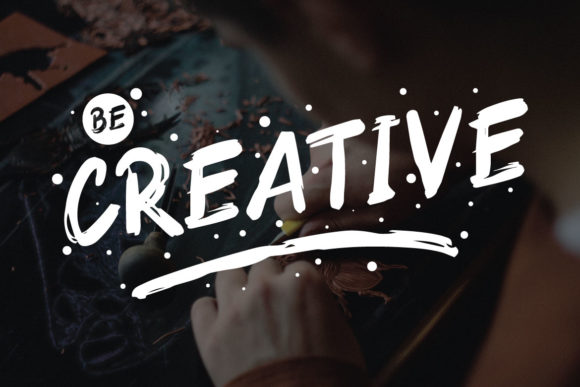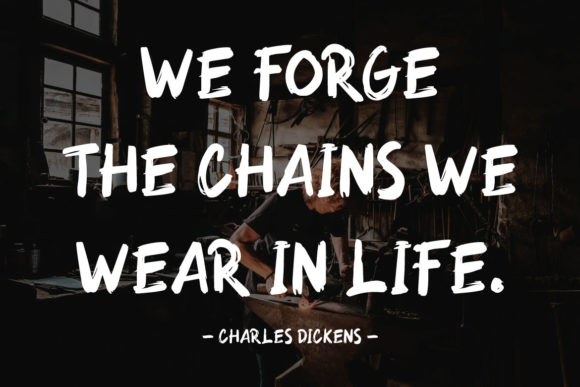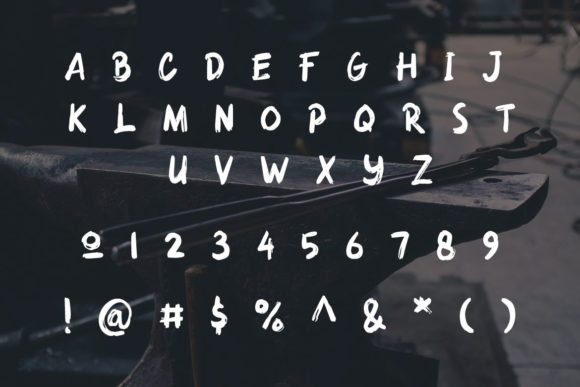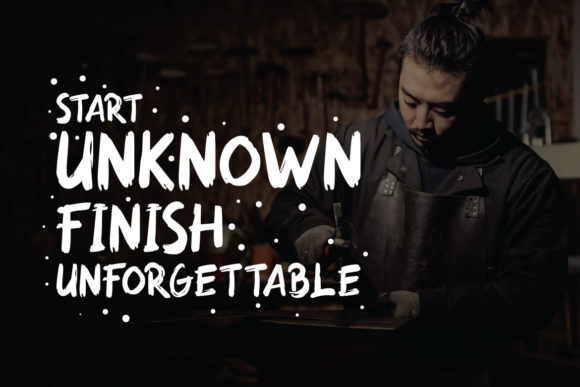
The Perfect Brush for Your Next Masterpiece
Have you ever stared at a blank canvas, waiting for inspiration to strike? The blank page, the empty screen – it can be intimidating, but it’s also a chance to create something truly unique. For designers, the right font can make all the difference. It’s the first step in bringing your vision to life, and it’s a crucial part of making your project stand out.
That’s where the Black Eagle Font comes in – a display font with a natural feel that’s perfect for adding a touch of personality to your work. Whether you’re designing a logo, a poster, or a website, this old-school brush texture typeface is sure to make a statement. With its versatility and unique character, the Black Eagle Font is a valuable addition to any designer’s toolkit.
Black Eagle Font Key Features
- Font Family: Black Eagle Font is a unique, sans-serif font family designed for use in various digital and print media.
- Character Set: The font family includes a comprehensive set of characters, including Latin, Cyrillic, and Greek alphabets, as well as a range of punctuation and symbols.
- Unique Characteristics: Black Eagle Font features a distinctive, modern design with a range of stylistic alternates and ligatures, adding a touch of sophistication and elegance to any text.
- Font Size Range: Suitable for use in a wide range of font sizes, from 8-point to 72-point, making it versatile for use in various applications, including body text, headings, and titles.
Black Eagle Font Review
Overall, I think the Black Eagle Font has some great qualities, but also some limitations that might make it less suitable for certain projects.
- The font’s elegant and modern design makes it perfect for high-end branding, luxury products, and sophisticated materials.
- The Black Eagle Font is highly legible, even at small sizes, which is great for digital applications like websites and mobile apps.
- The font family includes a wide range of weights and styles, allowing for a lot of flexibility in terms of typography and design.
- The font’s unique design might be too bold or overpowering for certain projects, making it difficult to pair with other fonts.
- The font family is not as extensive as some other popular font families, which might limit its versatility.
- The font’s modern design might make it less suitable for more traditional or vintage-style projects.
I would recommend the Black Eagle Font for projects that require a high level of sophistication and elegance, but it’s not the best choice for more casual or playful projects. With its unique design and wide range of weights and styles, it’s definitely worth considering for the right project.
Getting the Most Out of the Black Eagle Font
To get the most out of the Black Eagle font, use it for:
- Headings and titles to add a touch of sophistication.
- Emphasizing important information or calls-to-action.
- Creating a unique and eye-catching design.
The Black Eagle font is commonly used for:
- Business and corporate materials.
- Marketing and advertising materials.
- Wedding and event invitations.
Alternatives to Black Eagle Font for Designers
1. Rockwell Font
The Rockwell Font is a slab serif typeface that offers a sturdy and classic look. It’s ideal for use in corporate branding, editorial content, and historical-themed designs. Compared to Black Eagle Font, Rockwell has a more traditional feel and is often used for formal documents and publications.
2. Arial Black Font
Arial Black is a sans-serif typeface that provides a bold and modern look. It’s suitable for use in digital media, advertisements, and business materials. Compared to Black Eagle Font, Arial Black is more versatile and can be used in a wide range of applications, but it may lack the elegance of Black Eagle Font.
3. Impact Font
The Impact Font is a sans-serif typeface that offers a bold and dramatic look. It’s ideal for use in headlines, titles, and other attention-grabbing elements. Compared to Black Eagle Font, Impact has a more aggressive feel and is often used to add emphasis to a design.
Q: Can I customize the Black Eagle Font for my specific design needs?
Yes, the Black Eagle Font is a highly customizable typeface. It supports various OpenType features, including ligatures, swashes, and stylistic sets. Additionally, the font can be modified using font editing software or custom font creation tools.